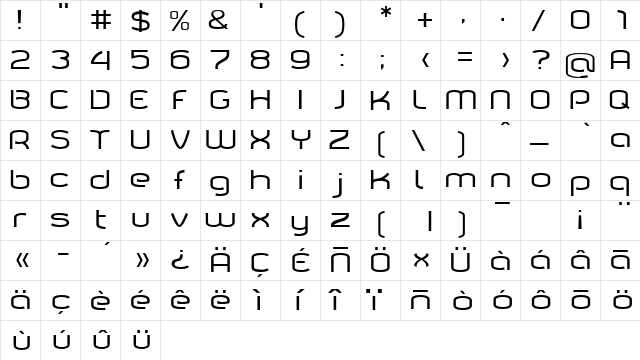
Tarpino Normal
Design Context for Tarpino Typeface
Tarpino is a composed and adaptable typeface that performs quietly and consistently across a wide range of design contexts.